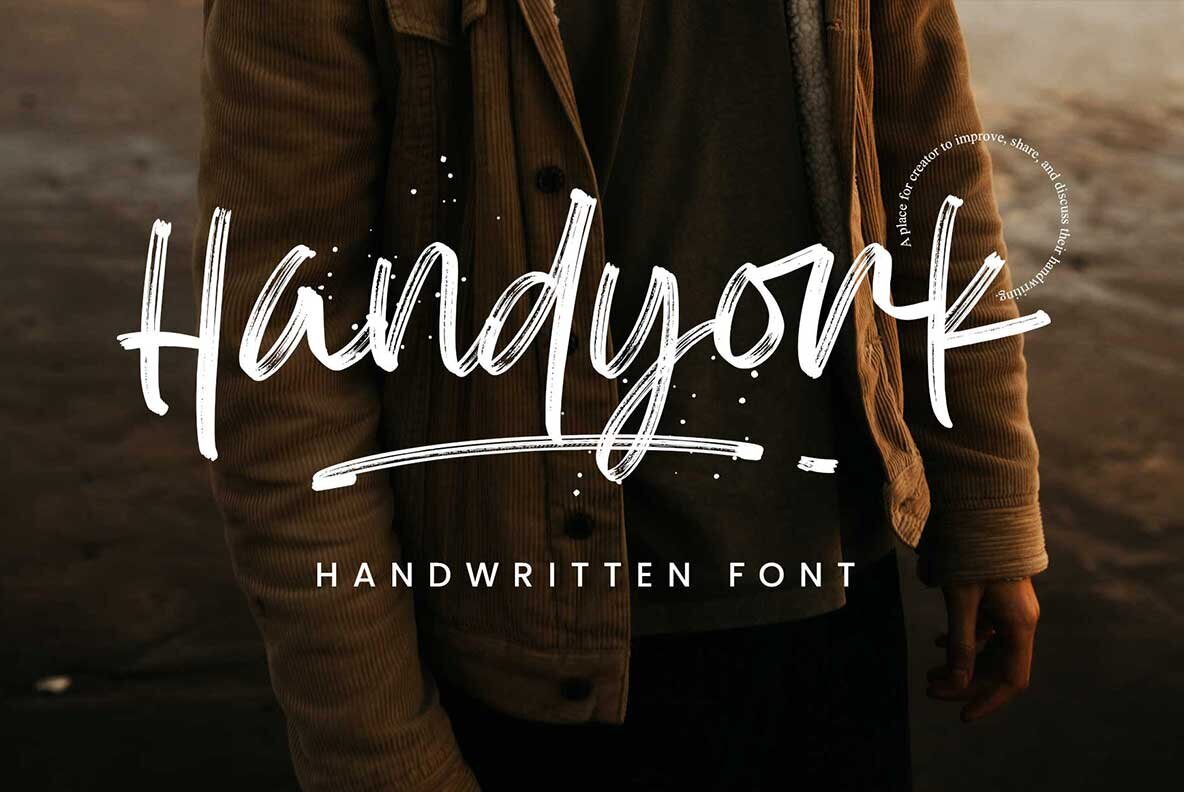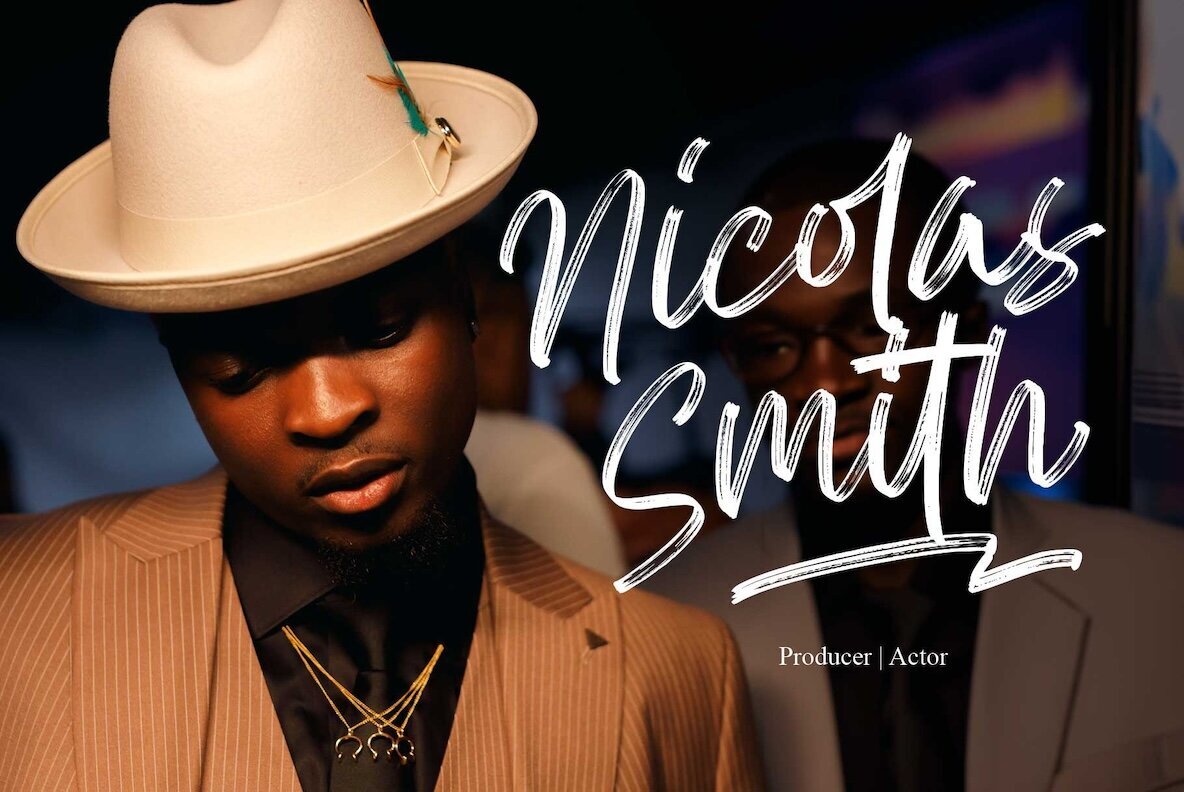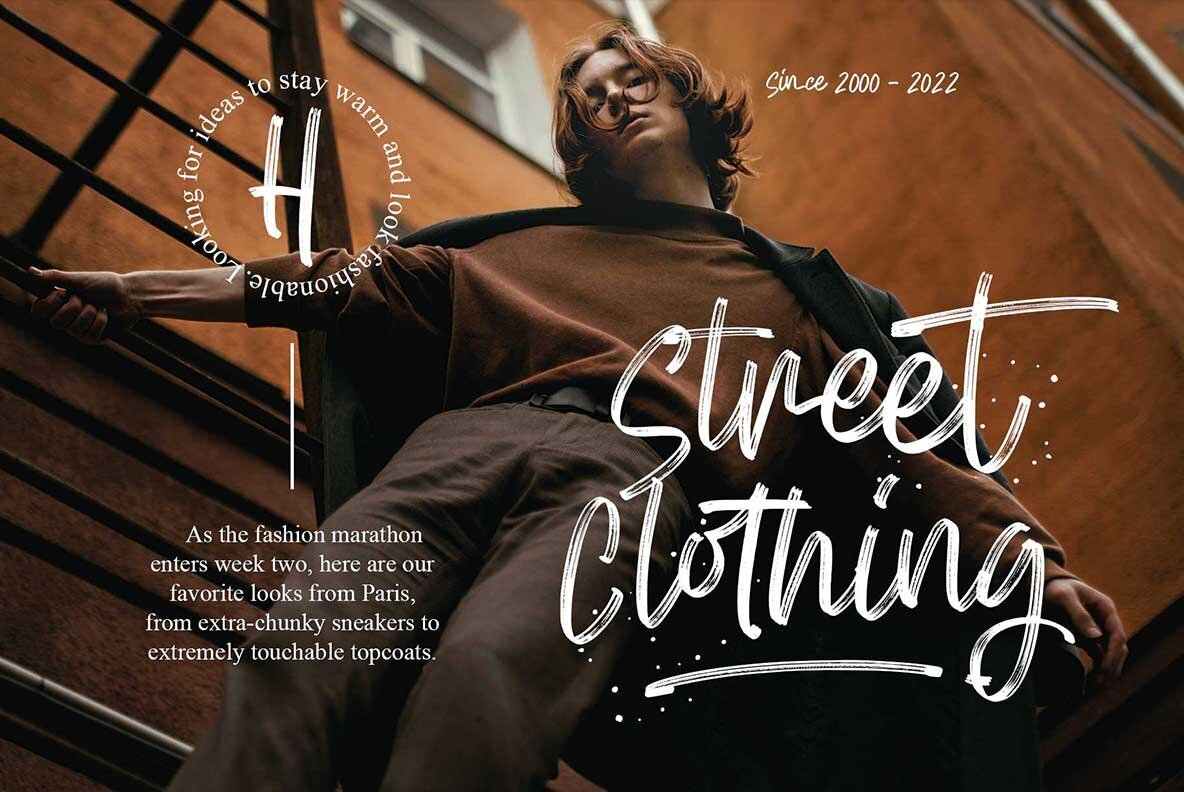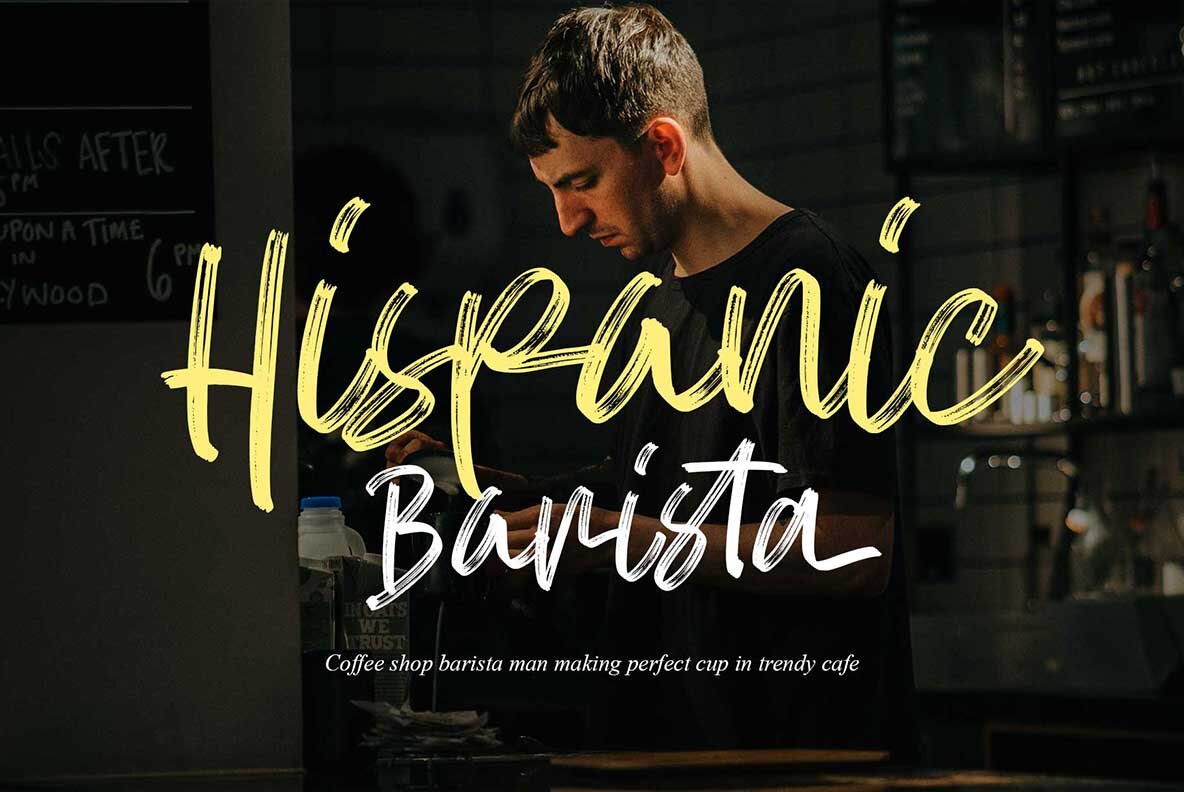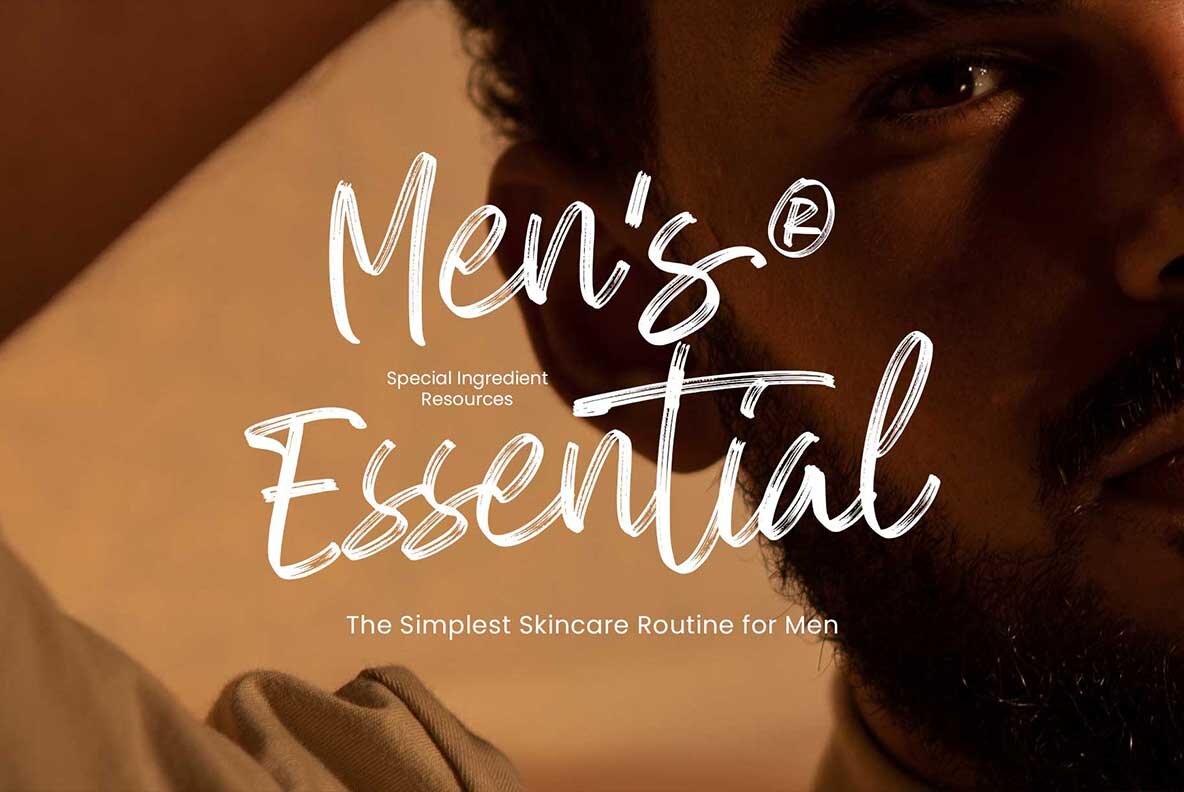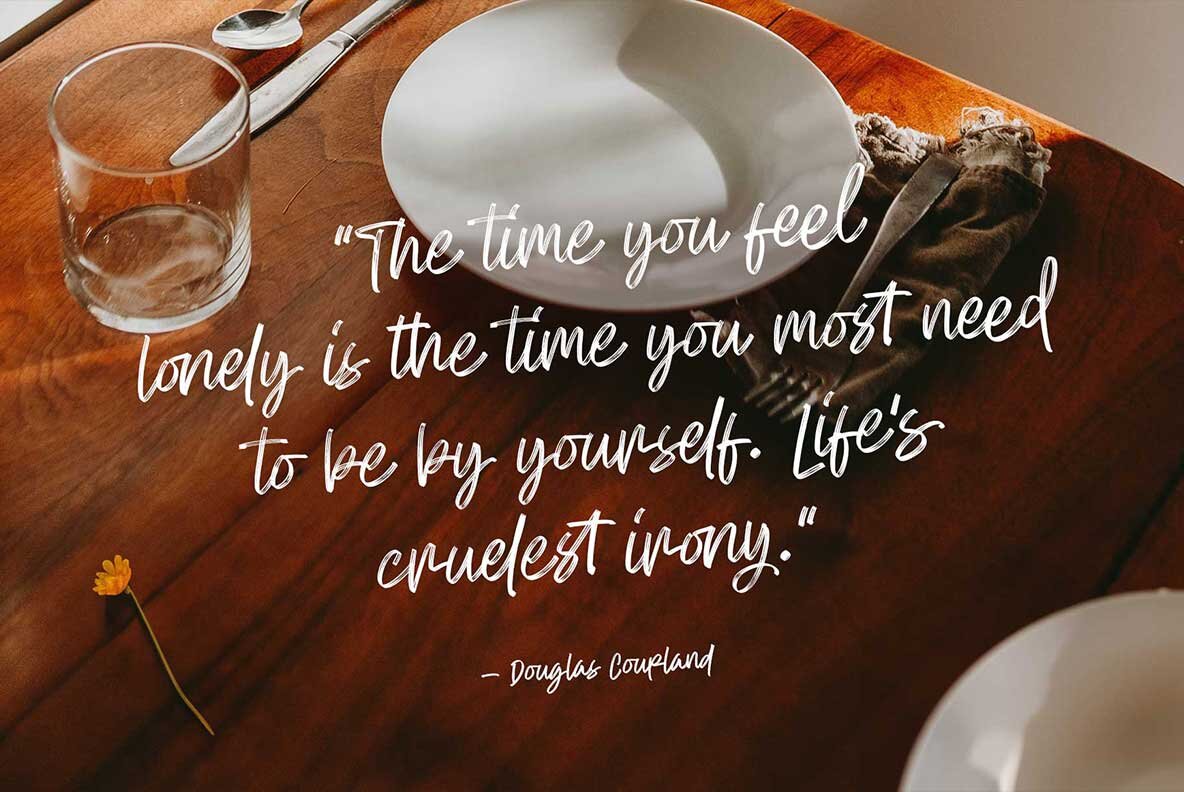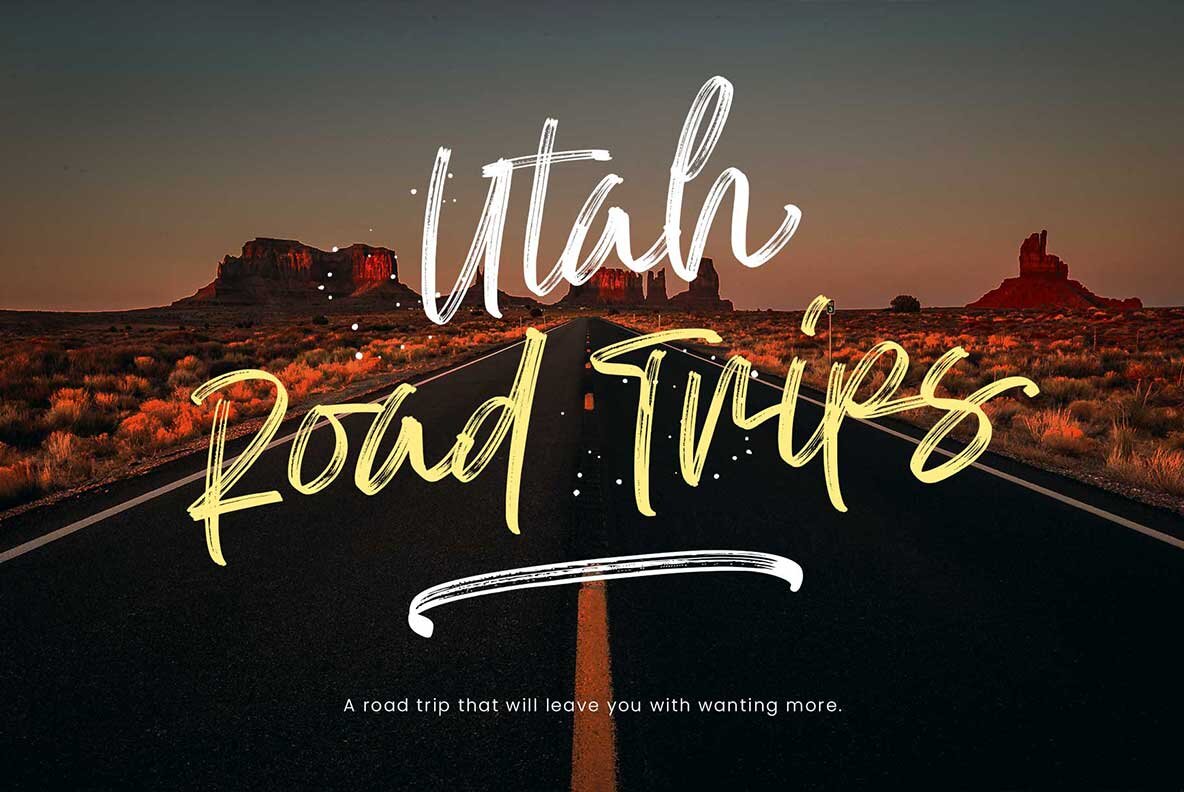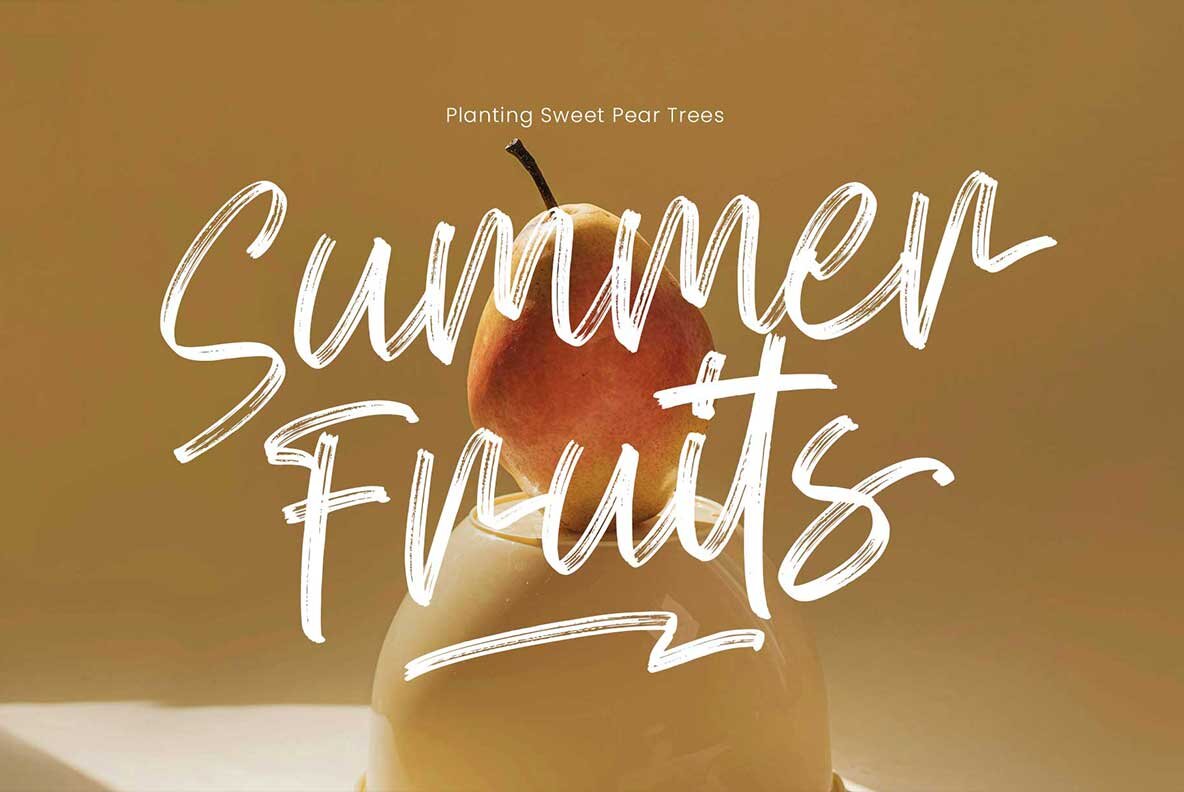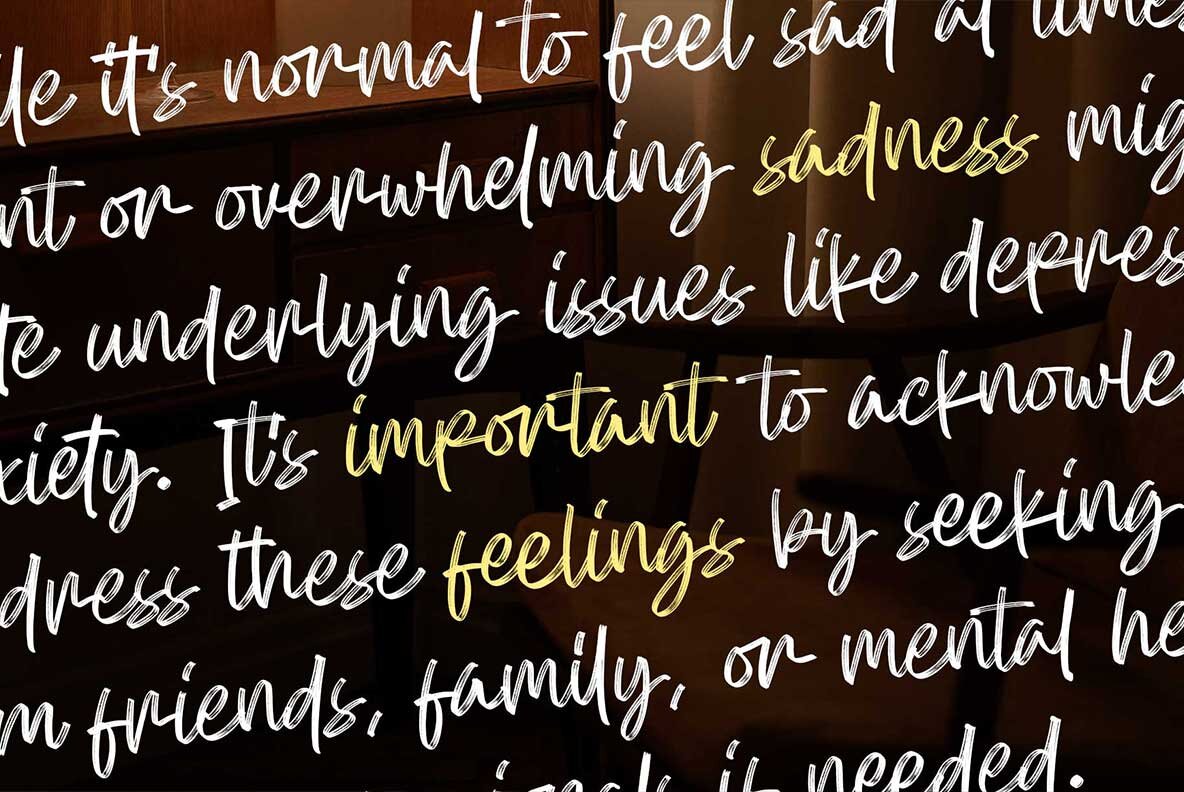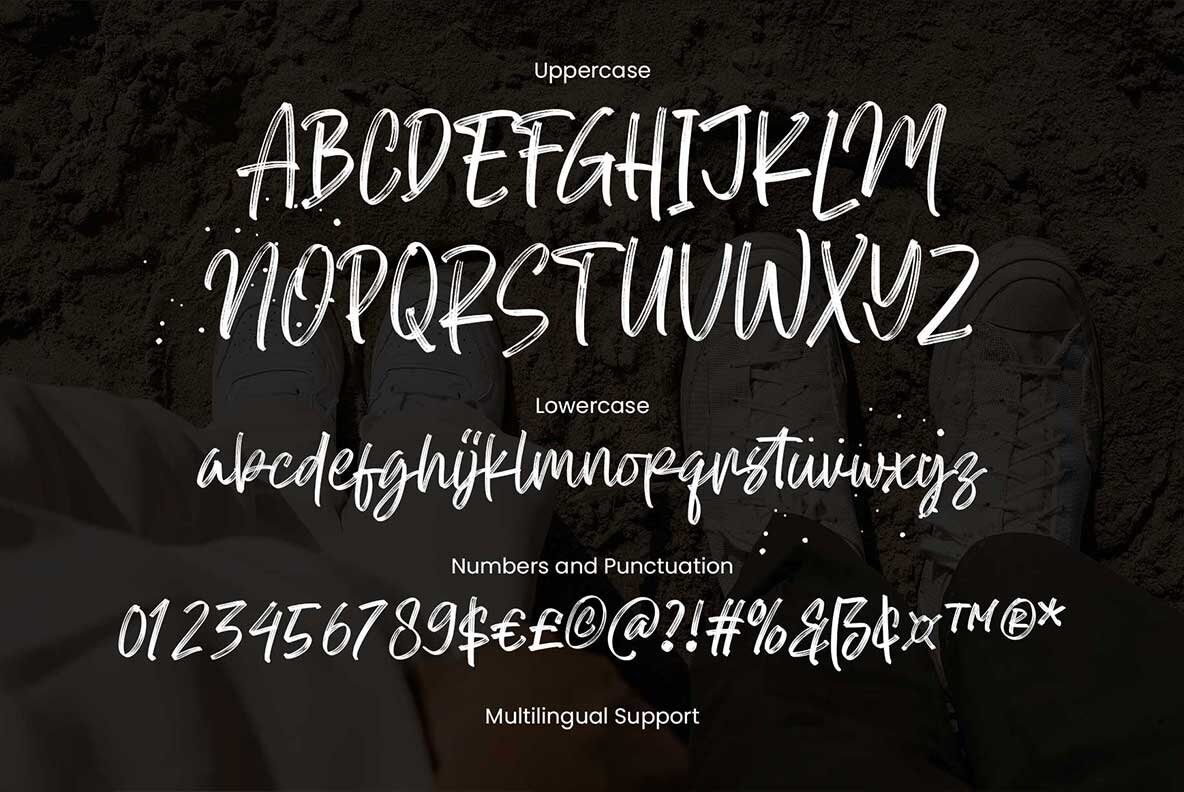
Handyork Font
Handyork Regular
Handyork brings a striking brush texture to your creative toolkit. With expressive, natural strokes and a dynamic, irregular baseline, this font adds character and energy to any design. The organic shape and unique alternates create eye-catching appeal across modern projects. Handyork is versatile for branding, advertising, fashion, book covers, logos, cards, and merchandise. Alternate characters and stylistic ligatures give you space to experiment and adapt your type to each unique vision. Its multilingual support ensures broad application for global design needs.Handyork Textured Brush Font